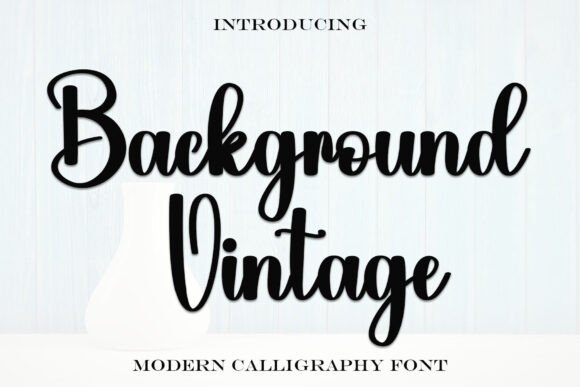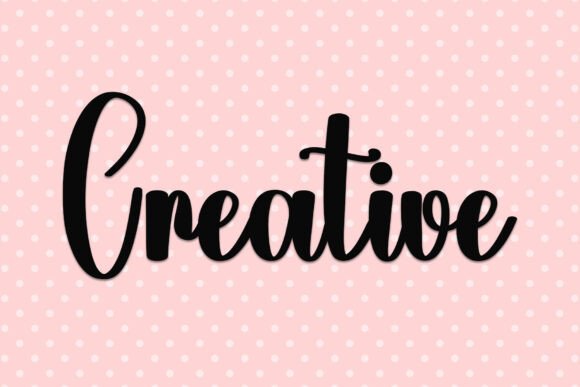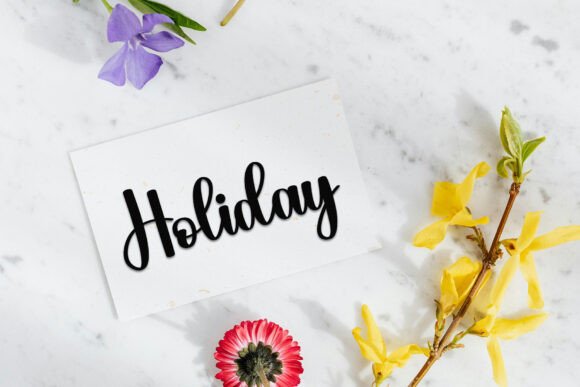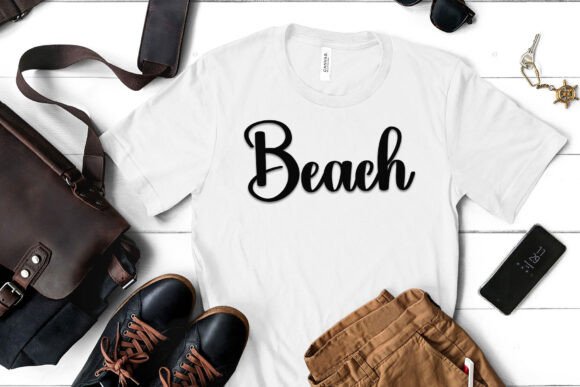
Background Vintage Font
About the Background Vintage Font
Discover the charm of Background Vintage Font. This font is a perfect blend of modern aesthetics and classic appeal. Background Vintage is a trendy handwritten font with a contemporary atmosphere and impeccable form, inspired by timeless classic calligraphy. It will add elegance and class to any of your design projects.
Background Vintage’s elegant, yet slightly informal style works best for headlines, short paragraphs, logos, and invitations. Its handcrafted feel makes it ideal for branding projects aiming for a vintage-inspired yet modern aesthetic, or for packaging that needs to convey a sense of quality and tradition. Avoid using it for lengthy body text or UI elements; its cursive nature can hinder readability in extended passages.
The font’s personality is sophisticated yet approachable. It projects a sense of timeless quality and subtle charm. To complement this, pair it with a clean sans-serif like Montserrat for a contemporary contrast, or a classic serif such as Garamond for a more traditional feel. A geometric sans-serif such as Futura could also work well for a modern, balanced pairing.
For a bolder statement, consider pairing Background Vintage with a playful script font for added personality, but ensure legibility remains a priority. However, avoid pairing it with overly heavy or ornate fonts, which might clash with its delicate nature.